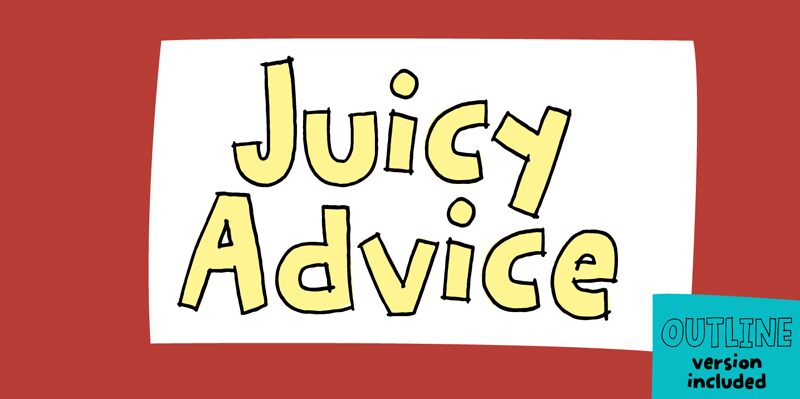
Juicy Advice, crafted by the talented Pizzadude, is a vibrant and bold display font that adds a playful touch to any project. With its lively cartoon style, this font is perfect for children's books, animated videos, and whimsical branding. The bold weight of Juicy Advice makes it ideal for eye-catching headlines, logo designs, and product packaging. Whether you're working on a colorful website or creating captivating social media graphics, Juicy Advice will infuse your projects with a delightful charm that will leave a lasting impression.